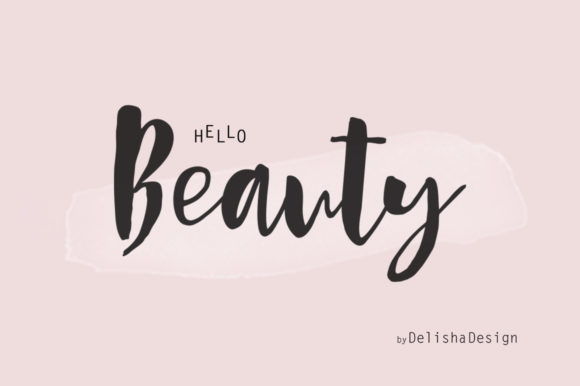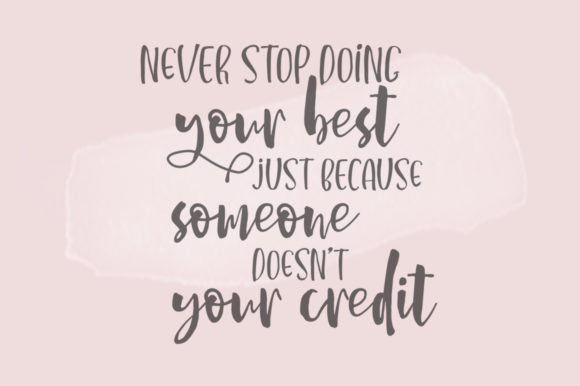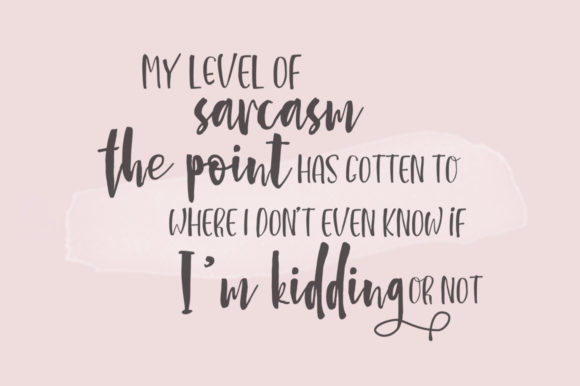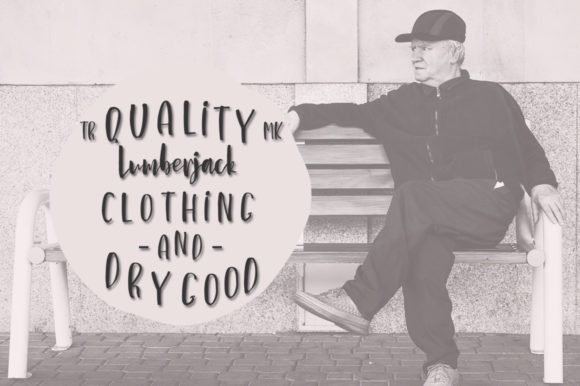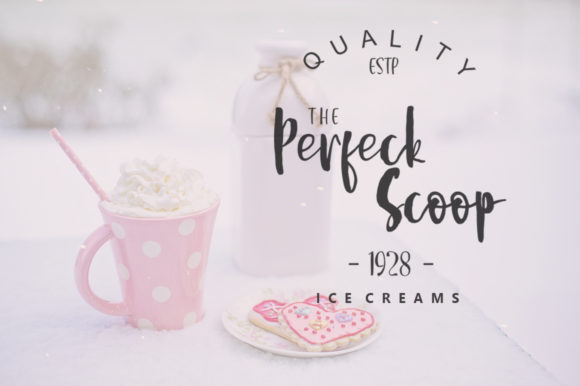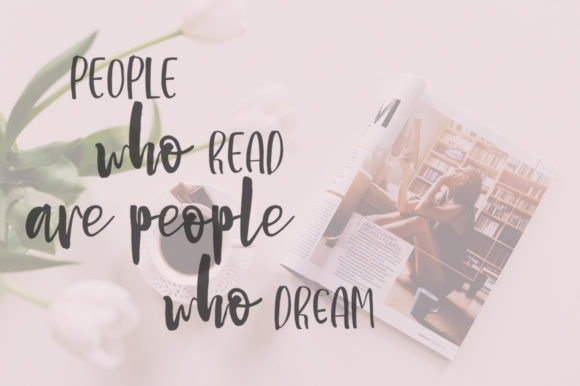
HomeScript FontsHello Beauty Font Script Fonts Hello Beauty Font FacebookXPinterestWhatsApp Hello Beauty Font Poster 2 Hello Beauty Font Poster 3 Hello Beauty Font Poster 4 Hello Beauty Font Poster 5 Hello Beauty Font Poster 6 About Hello Beauty Font Hello Beauty is a stunning handwritten font with an irregular baseline. Get inspired by its authentic charm. DOWNLOAD NOW People also explored Lostropis Font Christmas Thania Font Rategin – Vintage Script Font Tracklist Font Mistorya Font Adinda Script Droping Font Hexer – Modern Slab Serif Font Valentine Doodle Font 275 0 TagsHello Beauty Font Previous articleThinkshare FontNext articleRosalina Font LEAVE A REPLY Cancel reply Comment: Please enter your comment! Name:* Please enter your name here Email:* You have entered an incorrect email address! Please enter your email address here Website: Save my name, email, and website in this browser for the next time I comment. Personal Use Free Aelten Personal Use Free Read more about this font Wildwest Personal Use Free Read more about this font Squealer Personal Use Free Read more about this font Waverly Date Personal Use Free Read more about this font BLOG Free Fonts Risk: Why Free Fonts Can Be Dangerous for Designers Free Fonts Risk: Why Free Fonts Can Be Dangerous for Designers Using free fonts is a common practice in web and graphic design. However, the... Where to Buy American Fonts Online in 2024 Fonts That Capture the Spirit of New York City Modern Sans-Serif Fonts That Brands Love in 2025